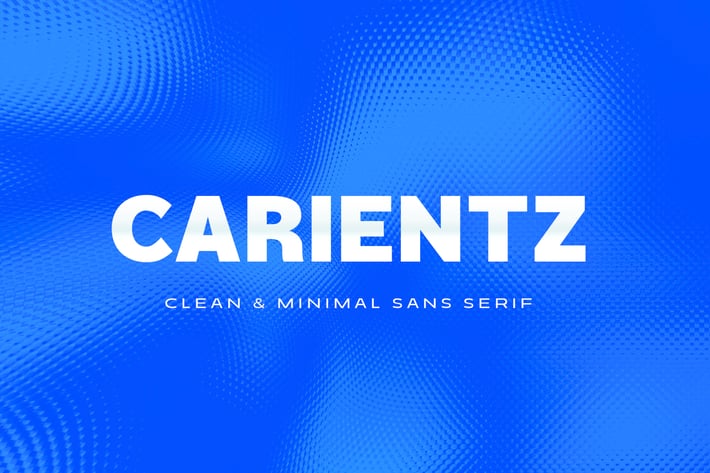
Carientz - Modern Minimal Bold Sans Serif Font
Carientz - Modern Minimal Bold / black Sans Serif - Logo and branding Font - Techno Gadget Tech / Technology Display Font.
Carientz is perfect for your up coming projects. Such as logo branding, editorial design, stationery design, esport design, 80s retro design, game industry, sport racing, techno / gadget brand, digital music poster, apps startup design, modern advertising design, art quote, home decor, book/cover title, special events and any more.